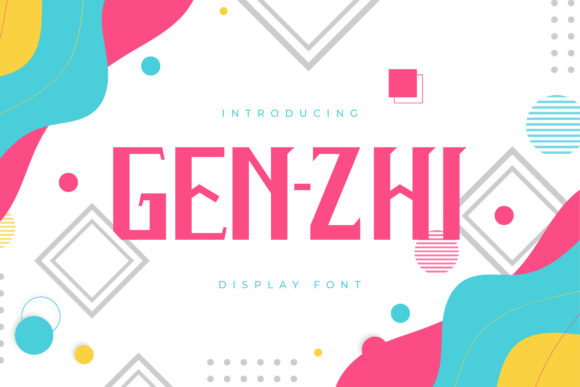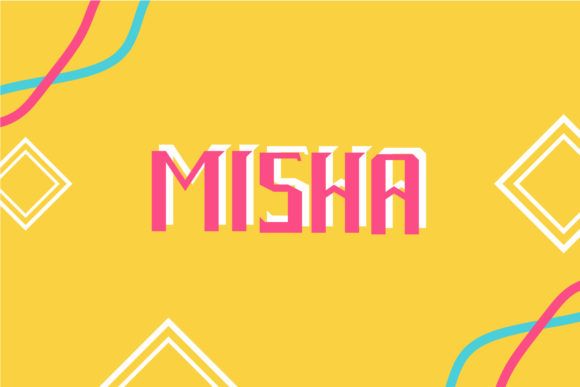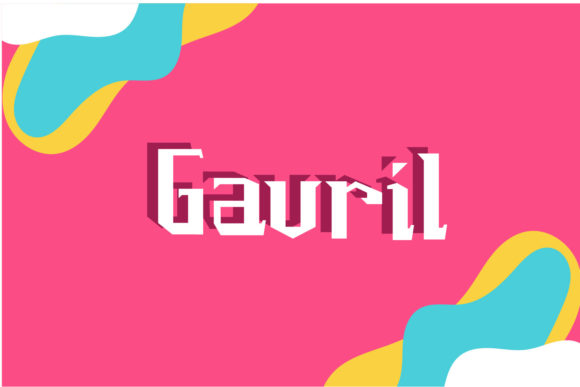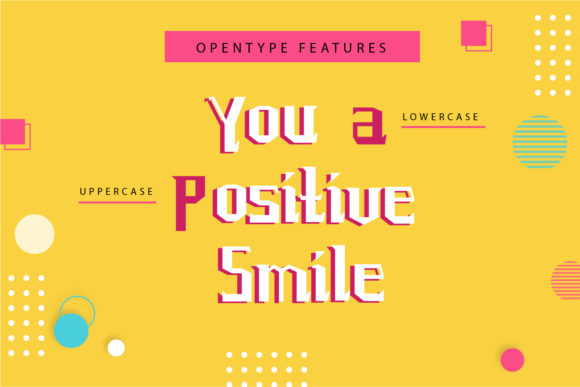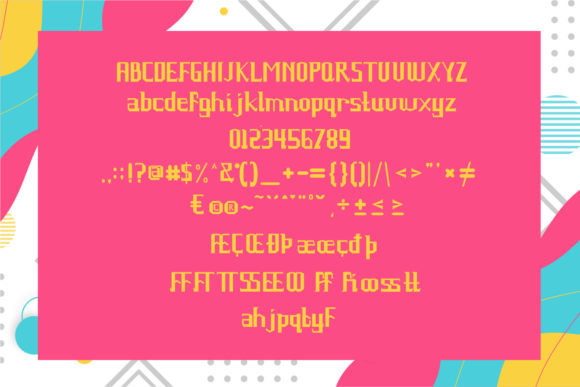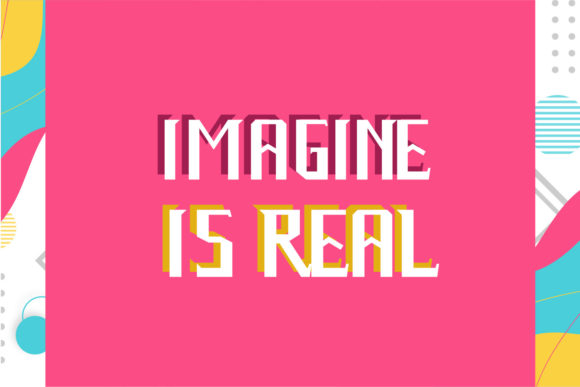
Genzhi Font
About Genzhi Font
Genzhi is a cute and natural display font. So beautiful on invitations like greeting cards, branding materials, business cards, quotes, posters, and more!